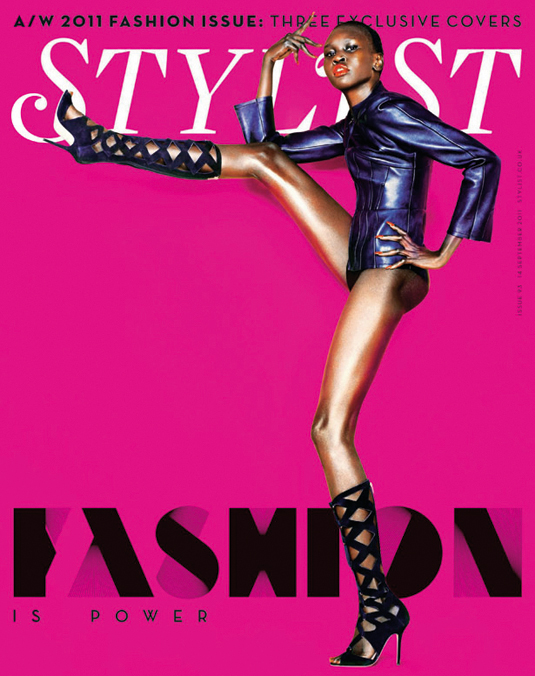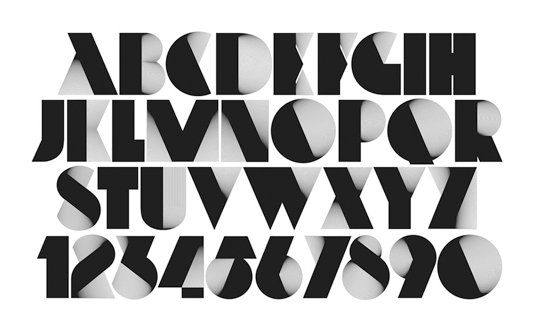
Greatest fonts countdown: 93 - Neo Deco
We're counting down the 100 greatest typefaces in existence. Here we present number 93...
FontShop AG, the renowned type foundry, conducted a survey based on historical relevance, sales at FontShop.com, and aesthetic quality. With a few additions from the experts at Creative Bloq and Computer Arts magazine, the best fonts ever were selected for the new book, 100 Best Typefaces Ever.
But without further ado, here's the 93rd best typeface ever...
93. Neo Deco
- Alex Trochut, 2010
The bold, Art Deco-inspired design of Neo Deco was created by renowned designer and illustrator Alex Trochut – a creative who counts the likes of The Guardian, Fallon, Computer Arts and The Rolling Stones as his clients.
A contemporary font with a strong presence, Neo Deco bagged a D&AD award back in 2010 (In book: Typography) and featured on the front cover of Stylist magazine’s 2011 fashion issue. An enticing and innovating design, Neo Deco includes a number of alternative characters (note that the lowercase characters within Neo Deco are uppercase alternates).